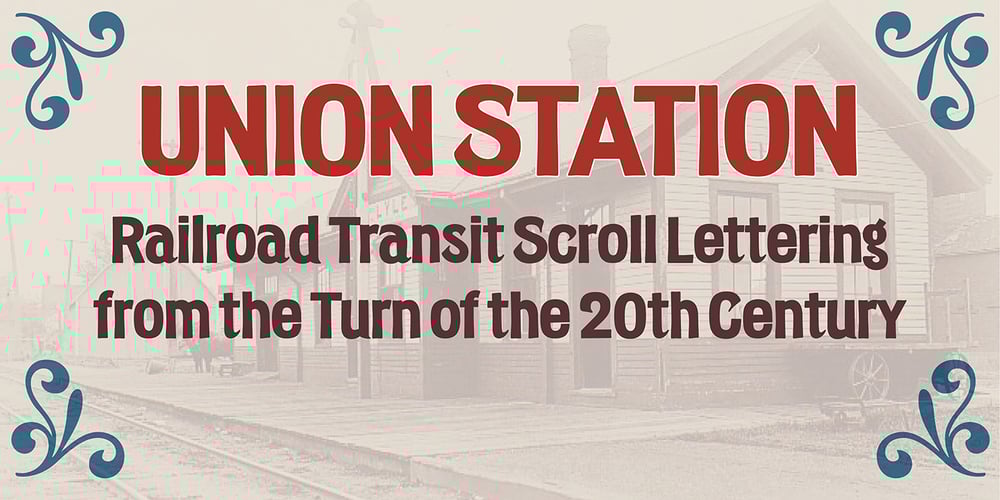
Union Station
Union Station font
Union Station Font Family was designed by Steve Matteson and published by Matteson Typographics. Union Station contains 1 styles and family package options. Union Station is based on the transit scroll lettering displayed in Denver’s Union Station. The letter shapes are reminiscent of grotesque sans serif typefaces of the same era with quirky details left by the artist’s brush. The typeface gives a sense of rugged Americana and a handcrafted spirit.